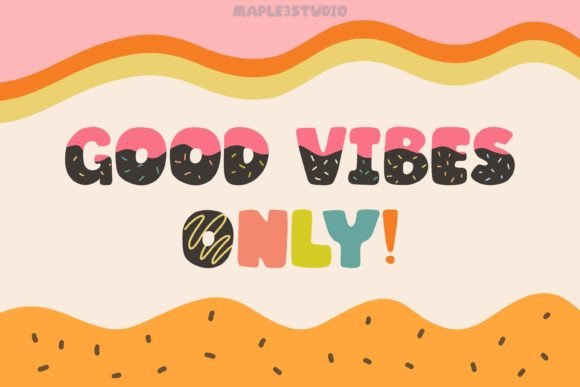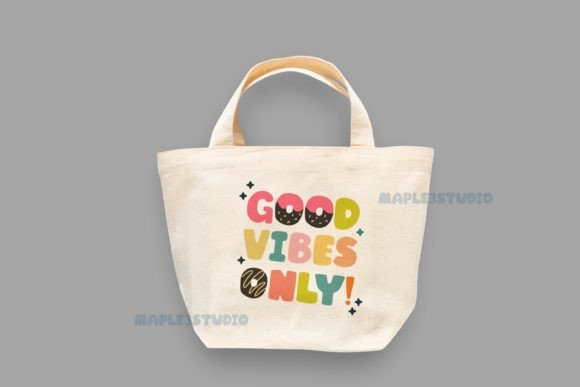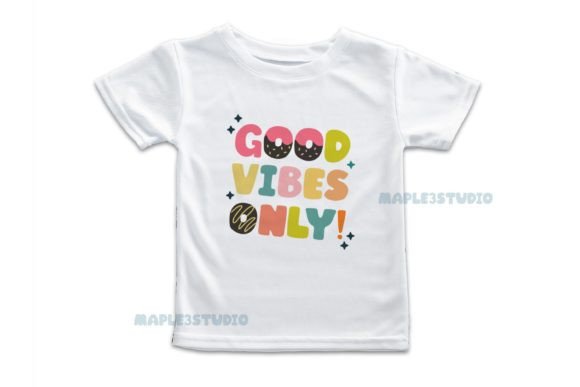
Introduction to Morning Daisy Font
There’s something magical about sipping a warm cup of coffee on a lazy Sunday morning, surrounded by blank sheets of paper and a world of creative possibilities. As you sit down to work on your next design project, you’re on the hunt for that perfect font that captures the essence of your vision. For many designers, that perfect font is the Morning Daisy Font – a stunning, hand-drawn typeface that exudes a playful and cozy vibe that’s hard to resist.
With its bold and cheerful design, the Morning Daisy Font is a versatile and high-quality design resource that’s perfect for a wide range of creative projects, from kids’ designs and fun branding to greeting cards and playful print-on-demand products. Whether you’re working on a free download or a paid project, this beautiful font is sure to add a personal touch that will make your designs stand out.
What sets the Morning Daisy Font apart from other fonts is its transparent background and free download option, making it an accessible and valuable resource for designers of all levels. Whether you’re a seasoned pro or just starting out, this font is a must-have for anyone looking to add a little extra magic to their creative projects.
Key Features of Morning Daisy Font
- Transparent background for seamless integration into various designs
- Unique characteristics include delicate, hand-drawn illustrations and a soft, pastel color palette
- Perfect for use in digital and print designs, including logos, branding materials, and creative projects
Honest Review: Morning Daisy Font
I recently had the chance to work with the Morning Daisy Font, and I must say it’s a great addition to any design resource library. The high quality of this font is immediately apparent, making it perfect for any creative project.
One of the standout features of the Morning Daisy Font is its transparent background, allowing it to blend seamlessly into any design. This makes it a versatile choice for a wide range of applications.
Here are some of the things that work well with the Morning Daisy Font:
- Easy to read, even at smaller font sizes
- Perfect for creating a whimsical, playful feel in designs
- Only available in a limited number of font weights
- May not be suitable for more formal or corporate designs
Overall, I’m impressed with the Morning Daisy Font. It’s a great addition to any design library, and its free download makes it a valuable resource for designers. While it may have some limitations, I think it’s a great choice for creative projects that require a playful, whimsical feel.
Open PowerPoint or Word and select the Morning Daisy Font from the font library. This design resource is perfect for creating presentations and documents that stand out from the crowd. With its high-quality design, you can easily add a touch of professionalism to your work.
To get the most out of the Morning Daisy Font, try combining it with other design elements to create a unique look. You can also experiment with different font sizes and styles to add depth and interest to your designs.
The Morning Daisy Font is perfect for a variety of creative projects, including wedding invitations, birthday cards, and social media graphics. Its elegant design and transparent background make it easy to use in a range of different contexts.
Does the Morning Daisy Font have a transparent background?
Yes, the Morning Daisy Font features a transparent background, allowing for easy layering and composition in your designs. This feature makes it an ideal choice for designers working on creative projects that require a high level of flexibility and customization.